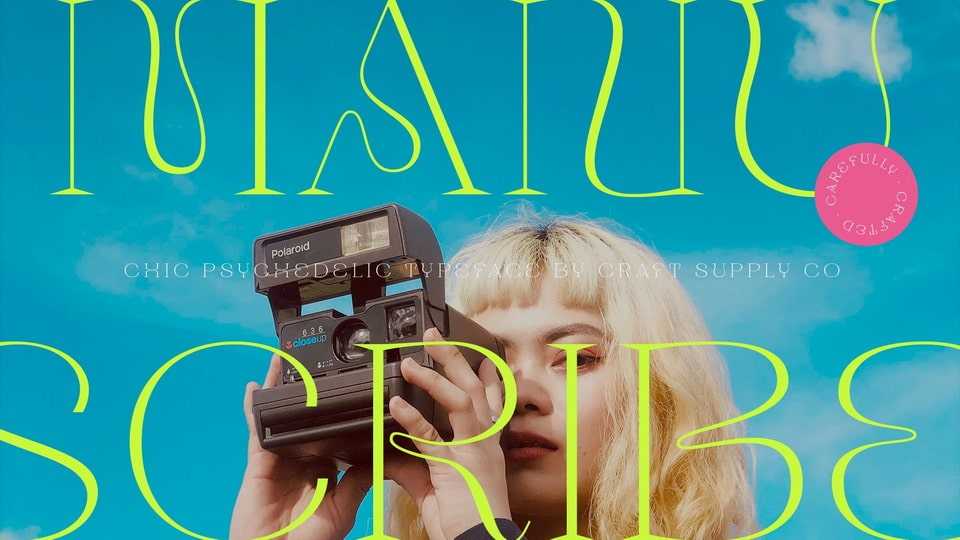
Download Manuscribe font, a chic psychedelic typeface with a smooth, wavy flow and sharp serifs that make it stand out for display or short text purposes. Manuscribe font can be used to create almost all types of design projects like print materials.